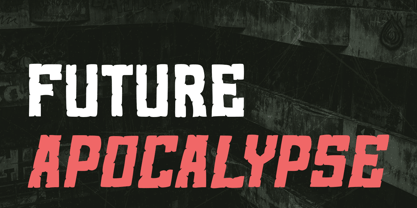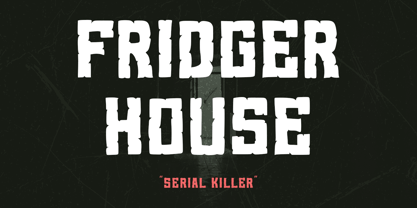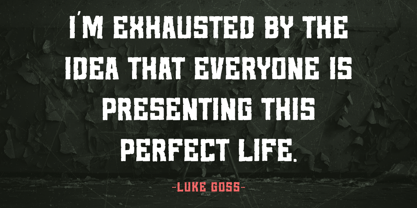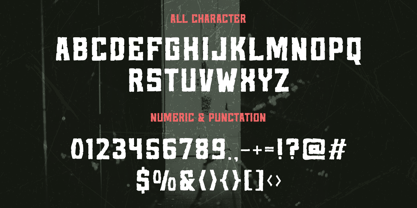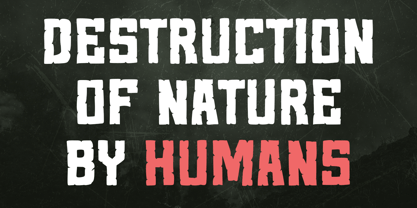
Stone Breaker
von Hatftype
Die Schriftfamilie Stone Breaker wurde von Asep Rendi entworfen und von Hatftype veröffentlicht. Stone Breaker enthält 1 Stile. Mehr über diese Familie
Discover the horror etched in every letter with STONE BREAKER, a horror display font designed to shake the soul and evoke fear. With a style inspired by cracked stone and a rough texture, STONE BREAKER brings a haunting atmosphere perfect for horror movie posters, thriller book covers, or Halloween themed designs.
Its letters reflect a destructive force, depicting stories hidden in dark ruins and mysterious hallways. Perfect for evoking a sinister aura in your designs, from attention grabbing headlines to details that whisper menace in the shadows.
Are you ready to take your creative projects to the next dimension of horror? Let STONE BREAKER be your weapon to create unforgettable visual terror.
Designer: Asep Rendi
Foundry: Hatftype